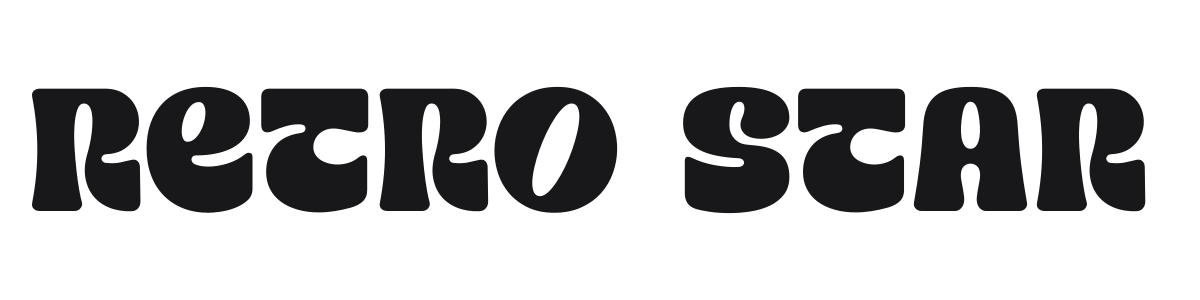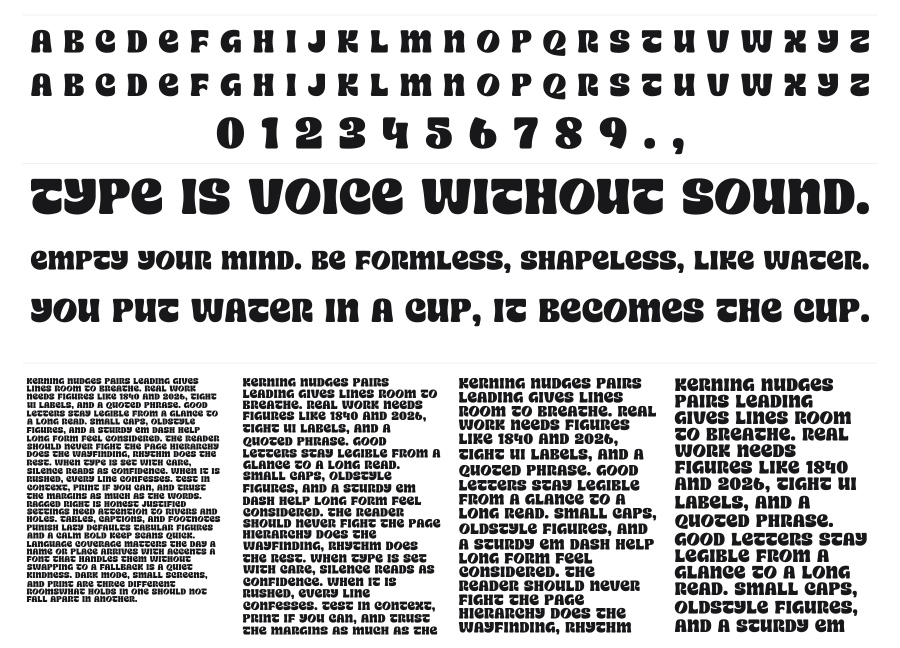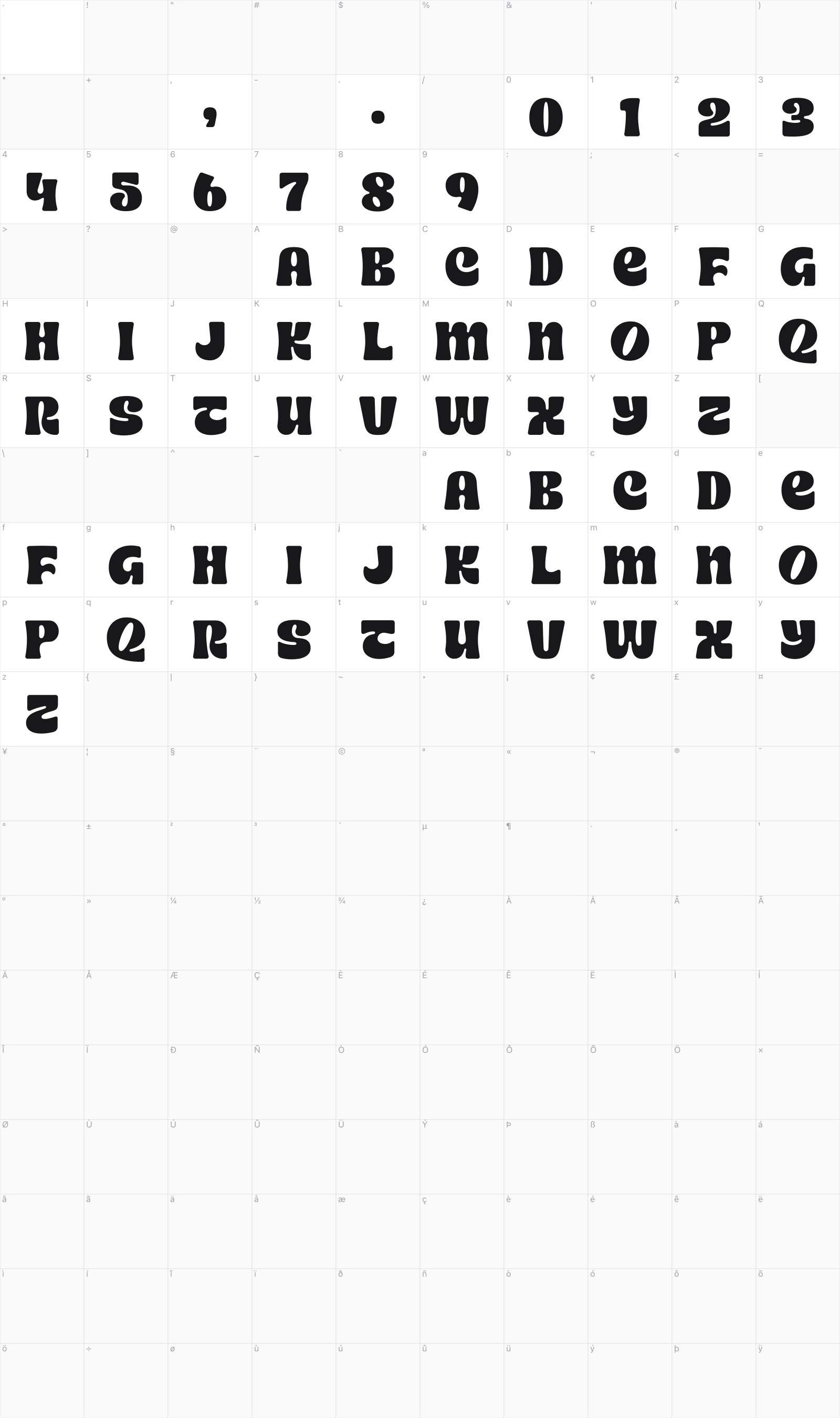
Retro Star
Retro Star is a heavy groovy display face soaked in 1960s–70s psychedelic lettering culture. Its ultra-bold strokes balloon into rounded, fleshy curves that pack together with almost no white space, creating an intense, energetic texture. Great for posters, album art, retro branding, and anywhere you want a loud vintage personality.